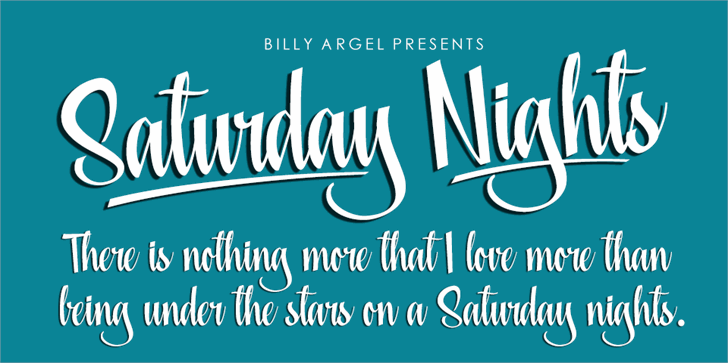
Free Saturday Nights Font
Featuring the eye-watering free saturday nights font. This is a downloadable typeface file brought to you by Font Space. This is absolutely fancy font so you can easily make world-class designs.